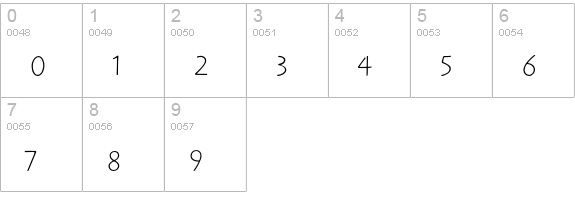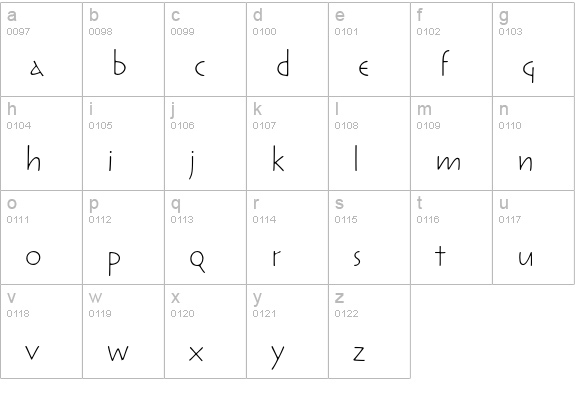
Reliq Std Light Calm is a refined, elegant variant in the Reliq typeface family \xE2\x80\x94 well suited to elegant body text, refined sub-headings, and luxury branding.
Reliq Std Light Calm is a stunning font that effortlessly combines elegance and tranquility. With its delicate strokes and graceful curves, this font exudes a sense of calmness that is perfect for any design project. The light weight of Reliq Std Light Calm adds an ethereal touch to any text, making it appear weightless and airy. Whether used for headings, body text, or captions, this font brings a sense of serenity to the page. One of the greatest features of Reliq Std Light Calm is that it is freely available to download at FontsMarket.com. This means that designers and creatives can easily access this remarkable font without any cost. It's a fantastic opportunity to enhance your designs without breaking the bank. The versatility of Reliq Std Light Calm is another reason why it is a must-have font. It can be used in a wide range of design projects, including logos, branding, web design, invitations, and more. Its clean and modern aesthetic makes it suitable for both digital and print mediums. Don't miss the chance to elevate your designs with Reliq Std Light Calm. Download this exquisite font for free at FontsMarket.com and discover the endless possibilities it offers. With its calming aura and timeless beauty, Reliq Std Light Calm is sure to bring a touch of sophistication to your creative endeavors.